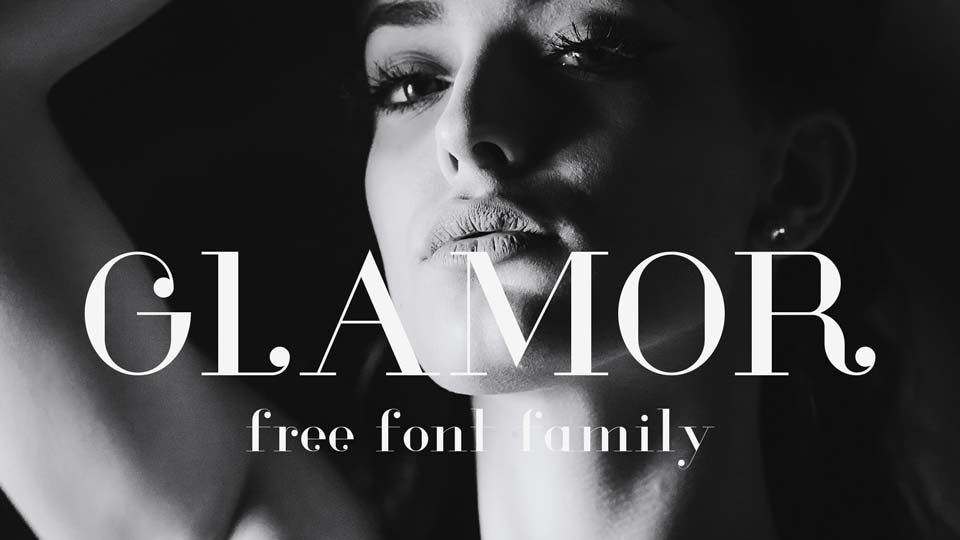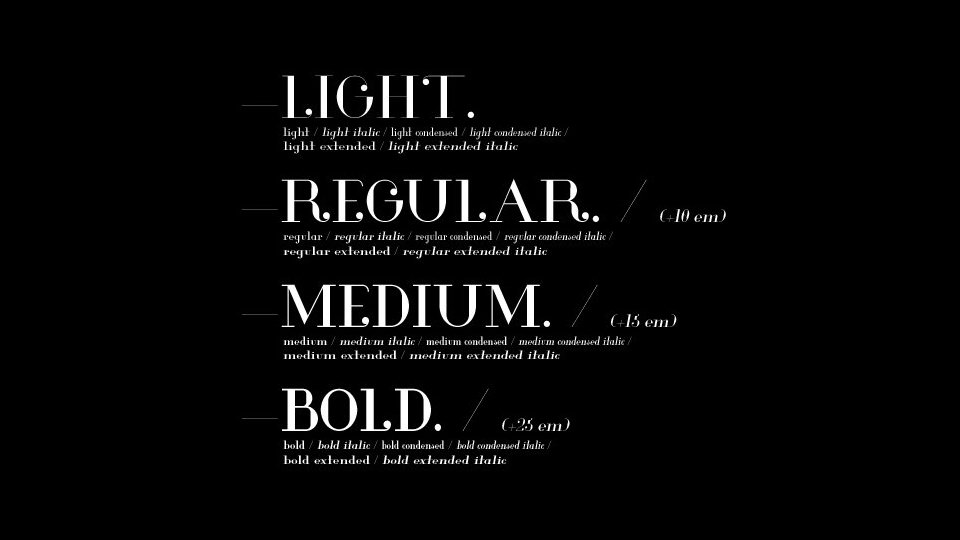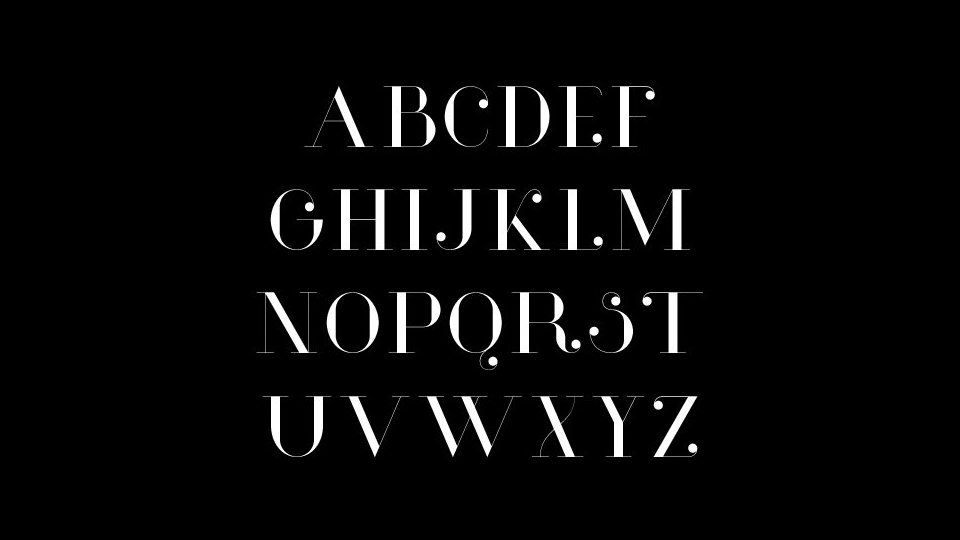
Glamor Typeface
Glamor is a chic & modern serif font family. It comes with a set of 24 fonts, from Light to Bold, each one in three styles Regular, Condensed and Extended with matched Italics and more than 200 unique characters per font.
Glamor typeface perfectly suits for online/offline magazines and/or books, posters, photography, websites, branding & identity, TV spots and much more.
Designed by: Hendrick Rolandez